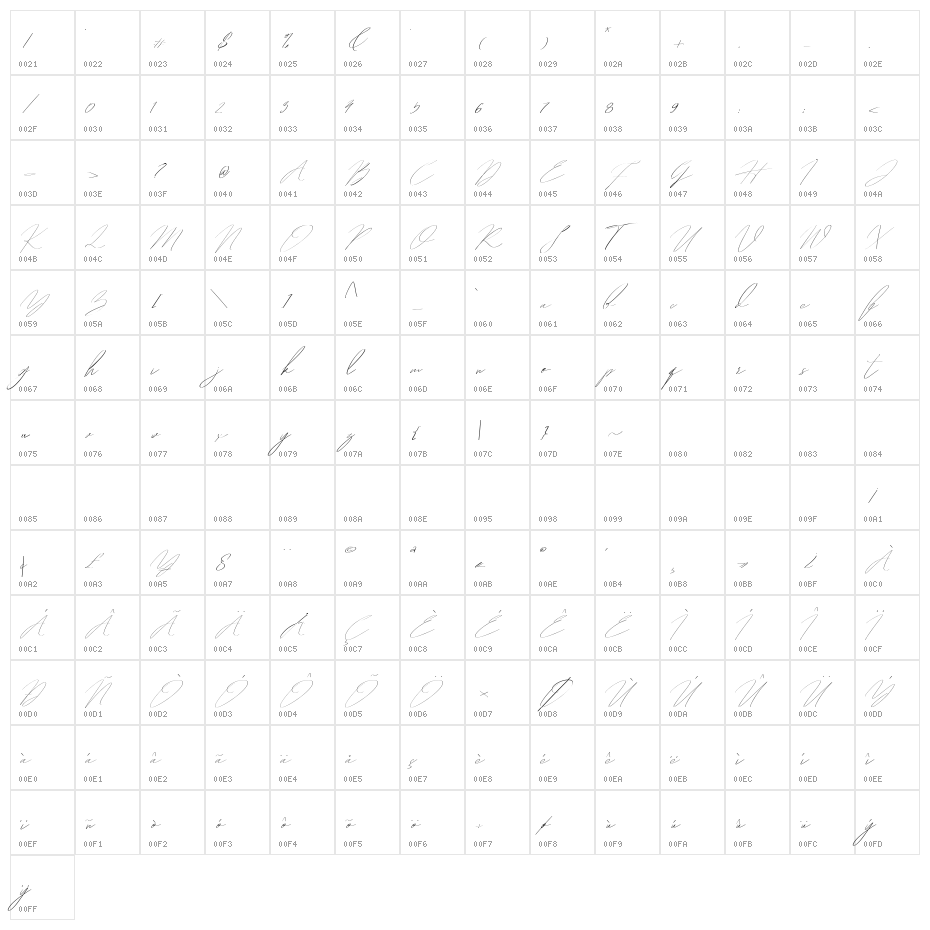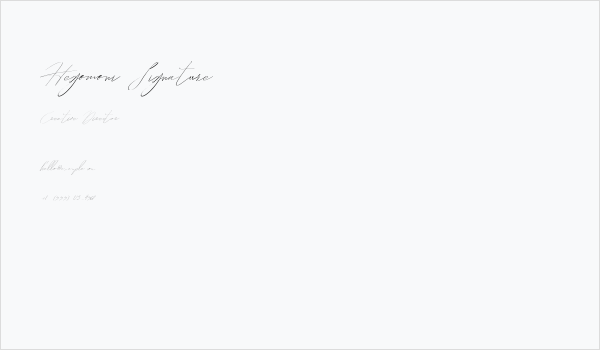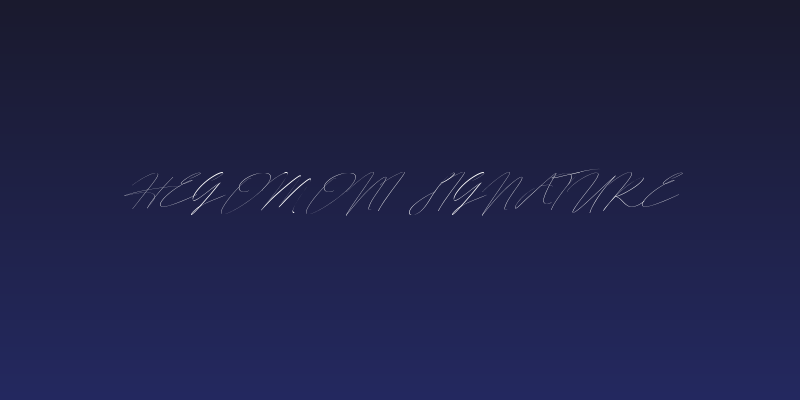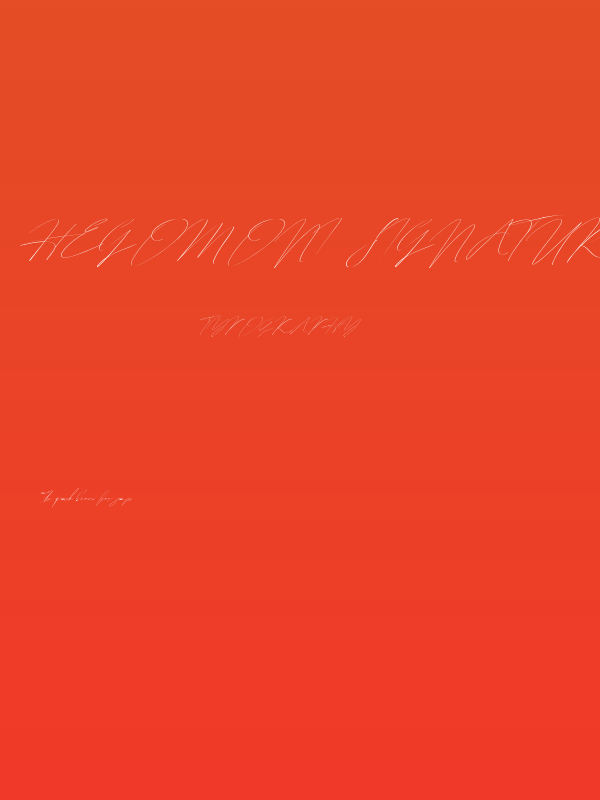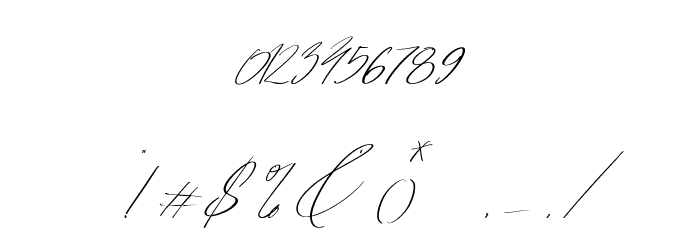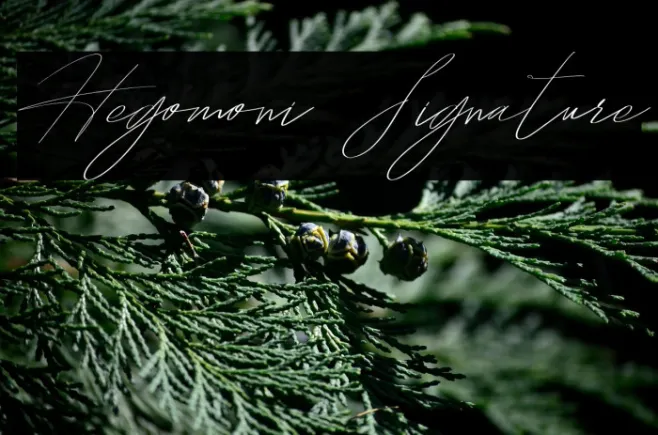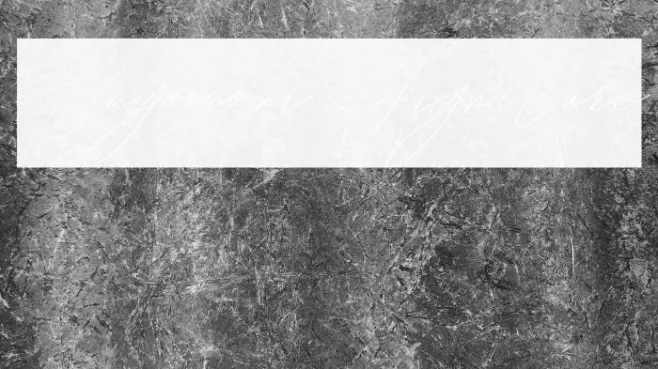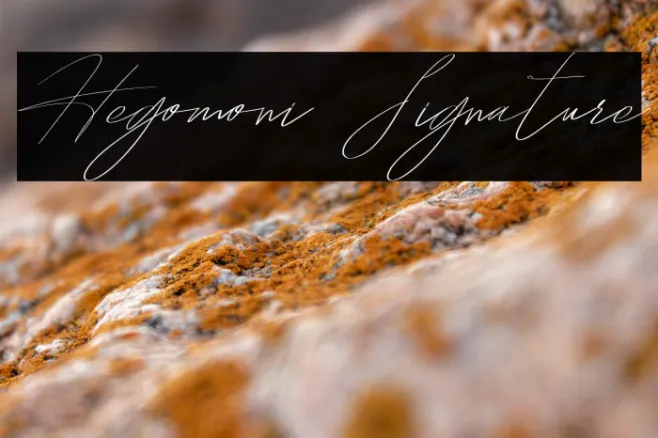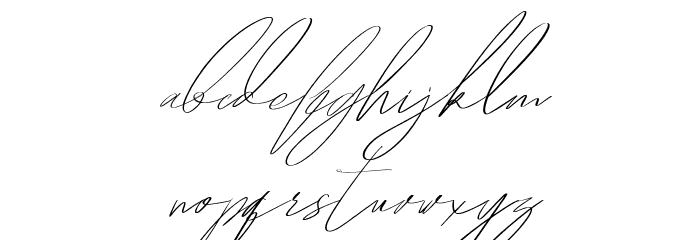
Hegomoni Signature Font
Hegomoni Signature Description
This font exudes elegance and sophistication with its flowing, cursive script style. The letters are interconnected, creating a seamless and fluid appearance that mimics the natural movement of handwriting. The uppercase letters are tall and graceful, while the lowercase letters maintain a consistent rhythm and balance. The numerals and special characters are designed to complement the overall aesthetic, adding a touch of refinement. The thin strokes and delicate curves give it a light and airy feel, making it ideal for projects that require a personal and artistic touch.
| Proposed Projects | Ideal for wedding invitations, personal branding, elegant stationery, and artistic projects. |